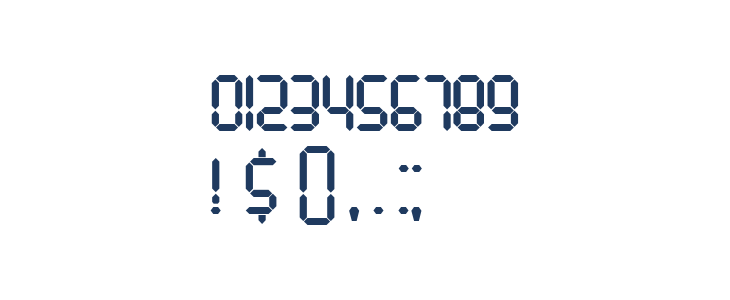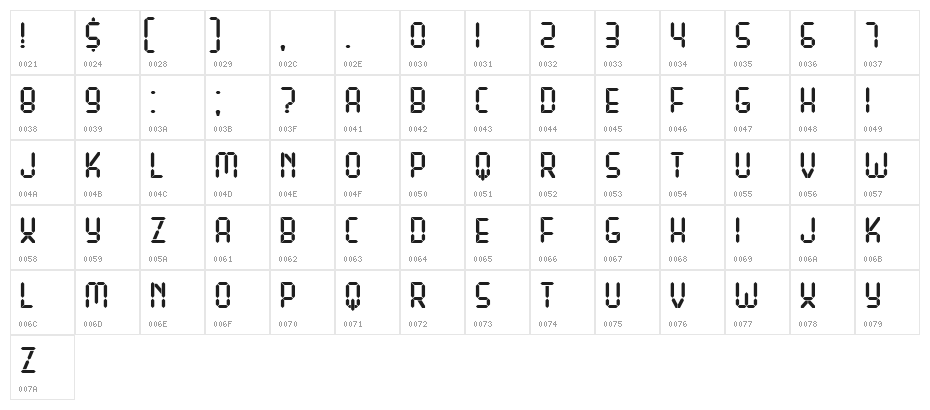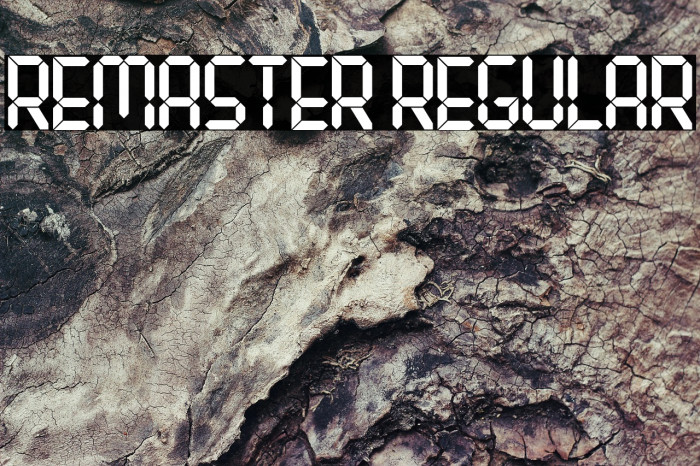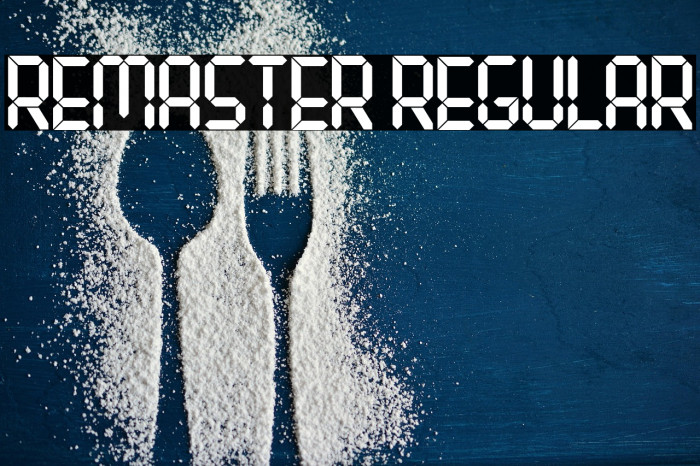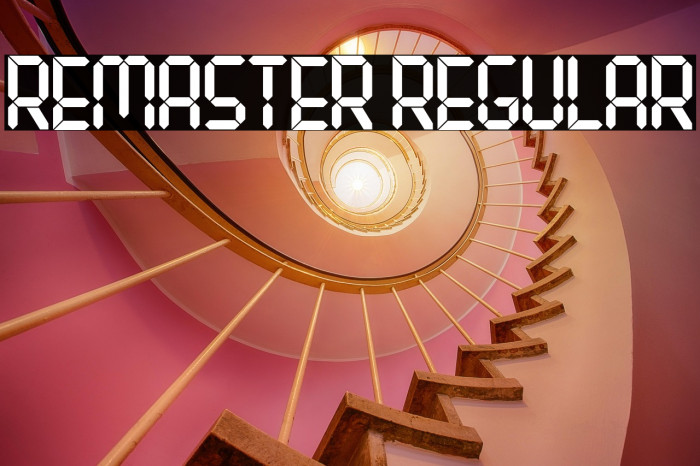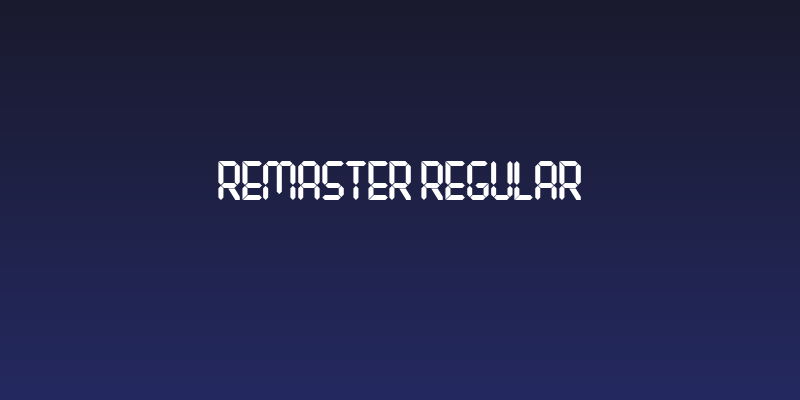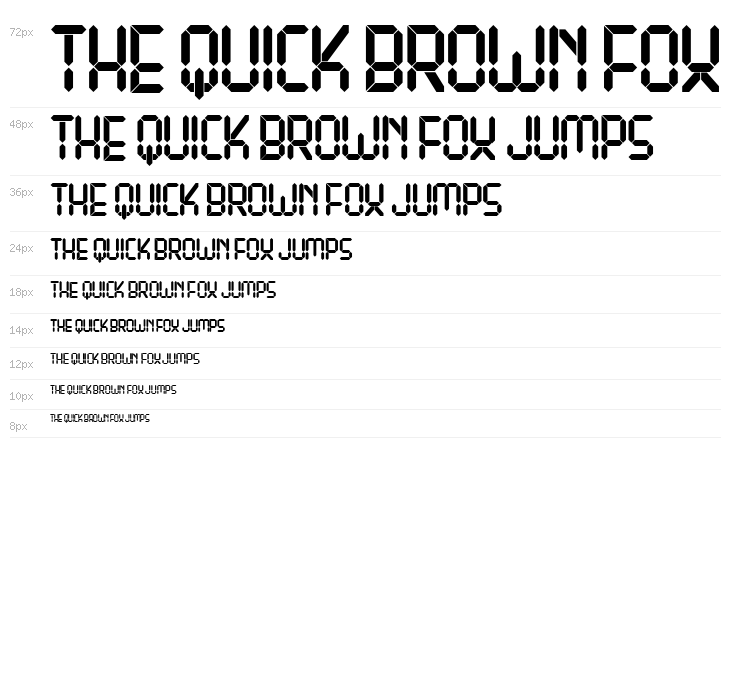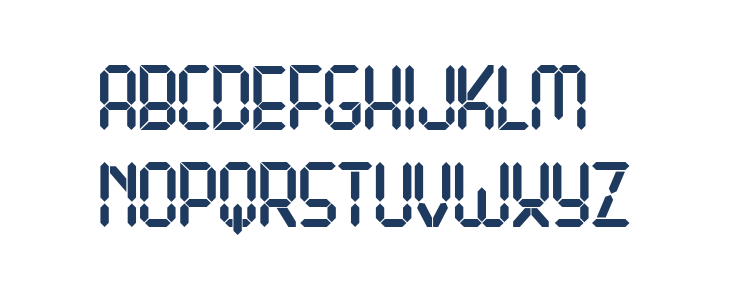
Remaster Regular Font
Remaster Regular Description
This font features a unique, geometric design with a futuristic and digital aesthetic. Each character is constructed from a series of angular, block-like shapes, giving it a distinct, pixelated appearance. The uppercase and lowercase letters maintain a consistent style, emphasizing sharp angles and straight lines. The numbers and special characters follow the same design principles, ensuring a cohesive look across all glyphs. This font's bold and structured form makes it ideal for projects that require a modern and technological feel.
| Proposed Projects | Ideal for digital interfaces, tech-themed posters, video game graphics, and futuristic branding. |